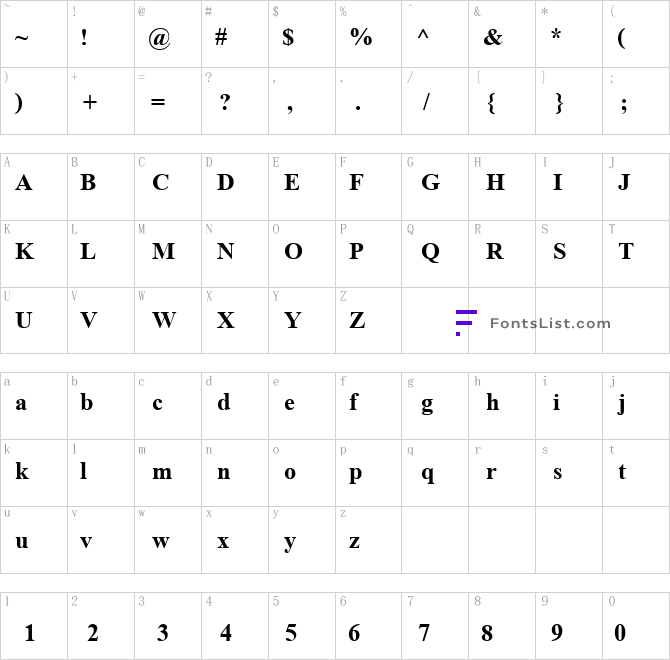
• Font Name:AngsanaUPC
• Subfamily:Bold
• Subfamily:Windows 95 - AngsanaUPC Bold
• Full Name:AngsanaUPC Bold
• Version:Version 2.1 - July 1995
• Weight:700
• PostScript:AngsanaUPC-Bold
AngsanaUPC-Bold-copy-3-.ttf is a very beautiful artistic font, AngsanaUPC-Bold-copy-3-.ttf is widely used in the design and printing of various books and pictures,AngsanaUPC-Bold-copy-3-.ttf has a strong visual impact,AngsanaUPC-Bold-copy-3-.ttf is a commonly used font in newspapers, magazines and books, and is used in posters, e-commerce Poster design, store design, logo design, font design and other fields.AngsanaUPC-Bold-copy-3-.